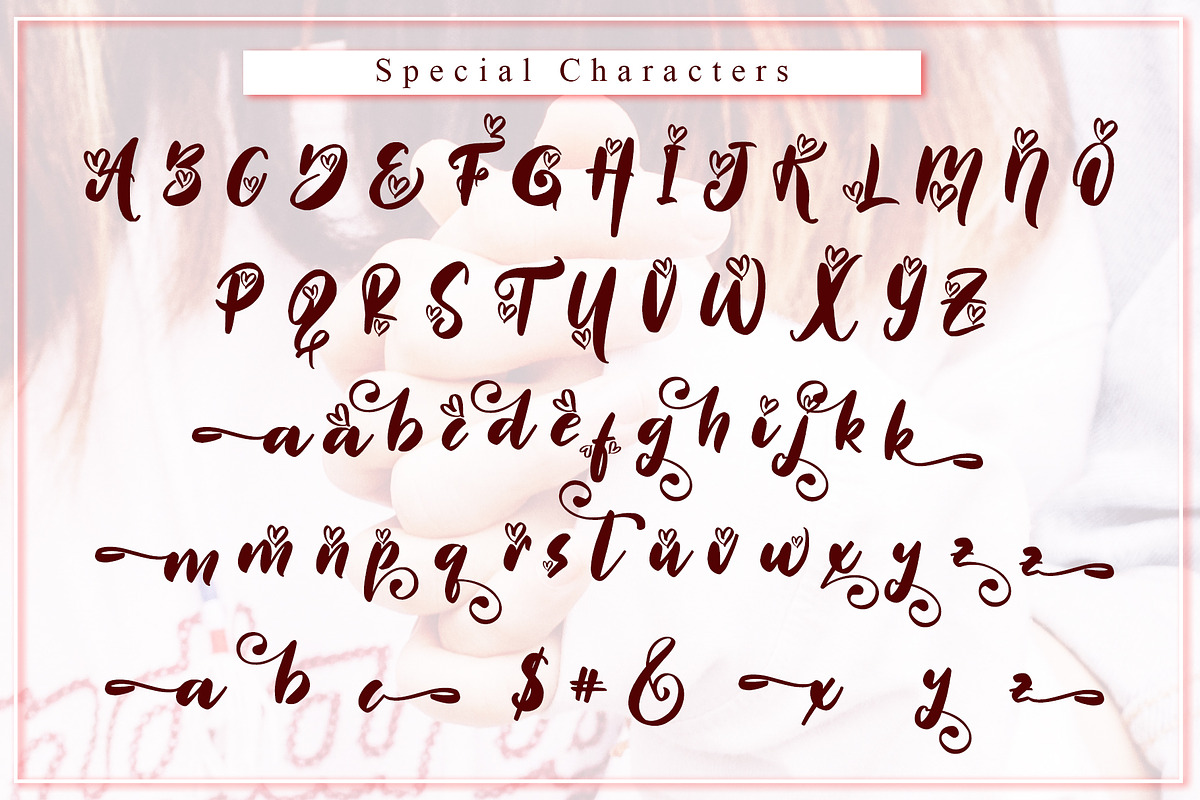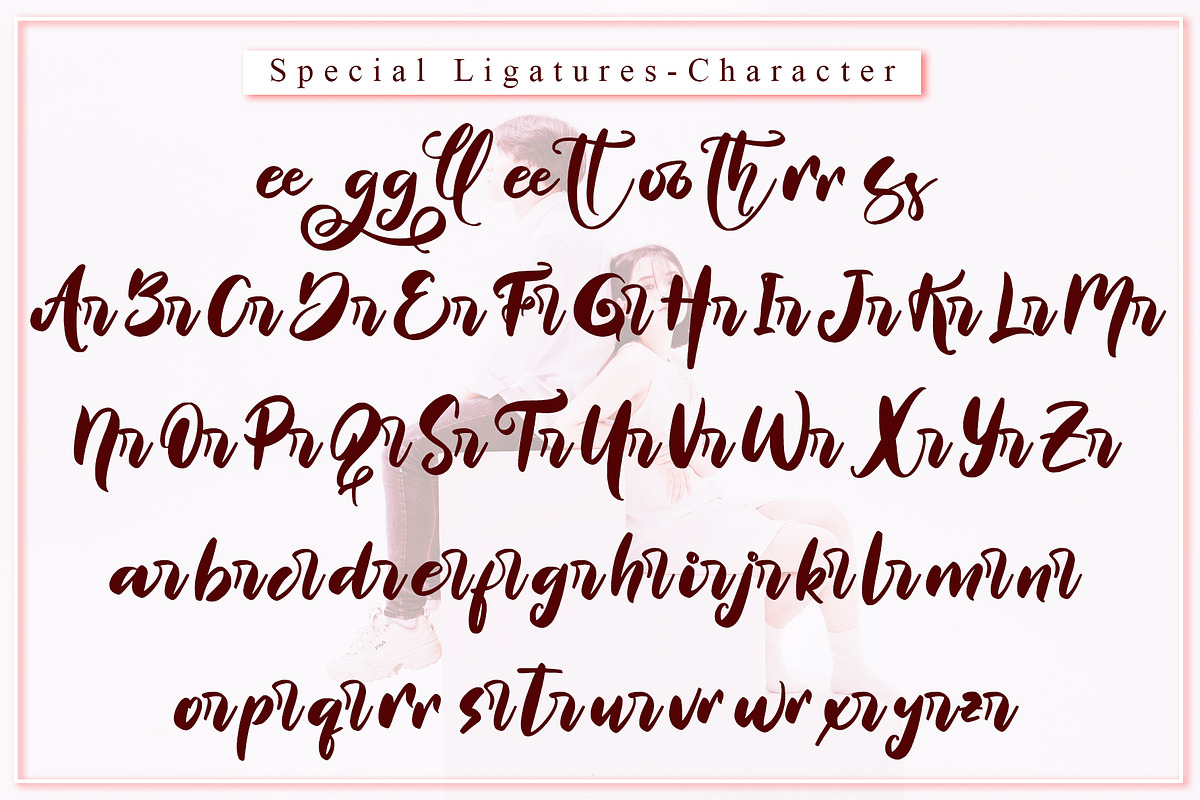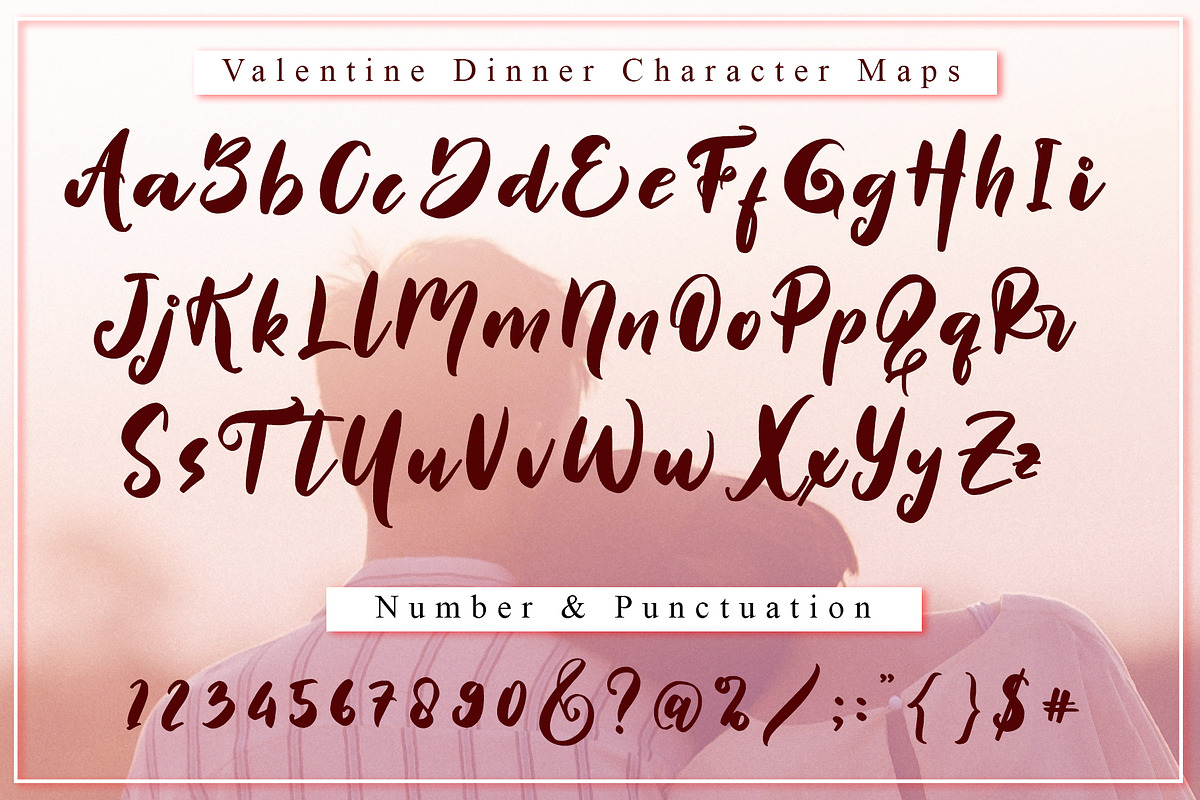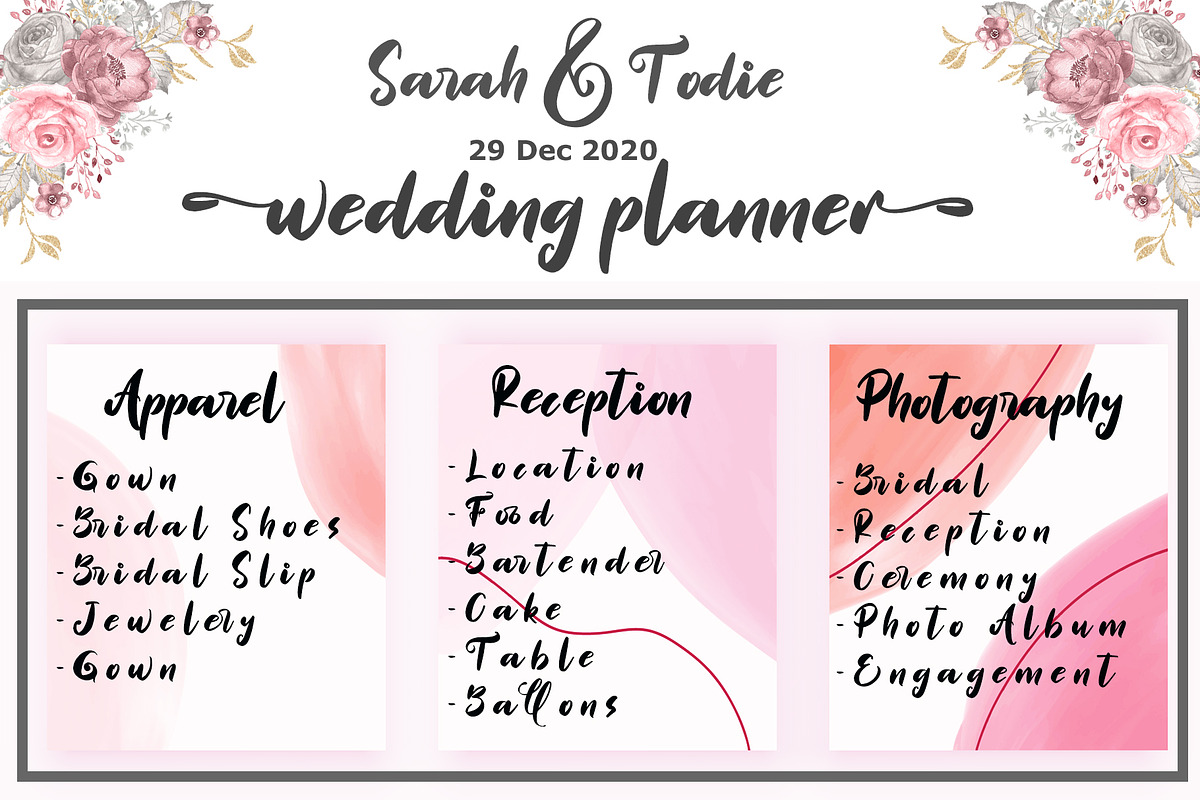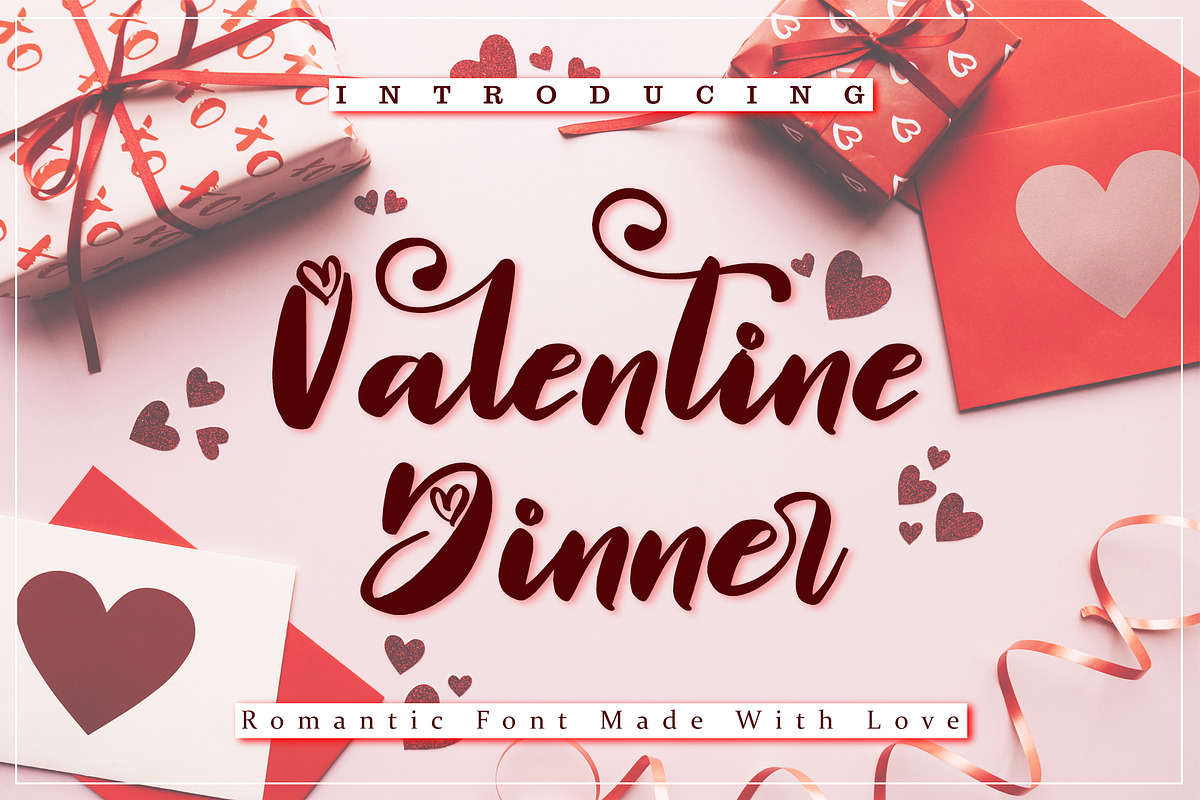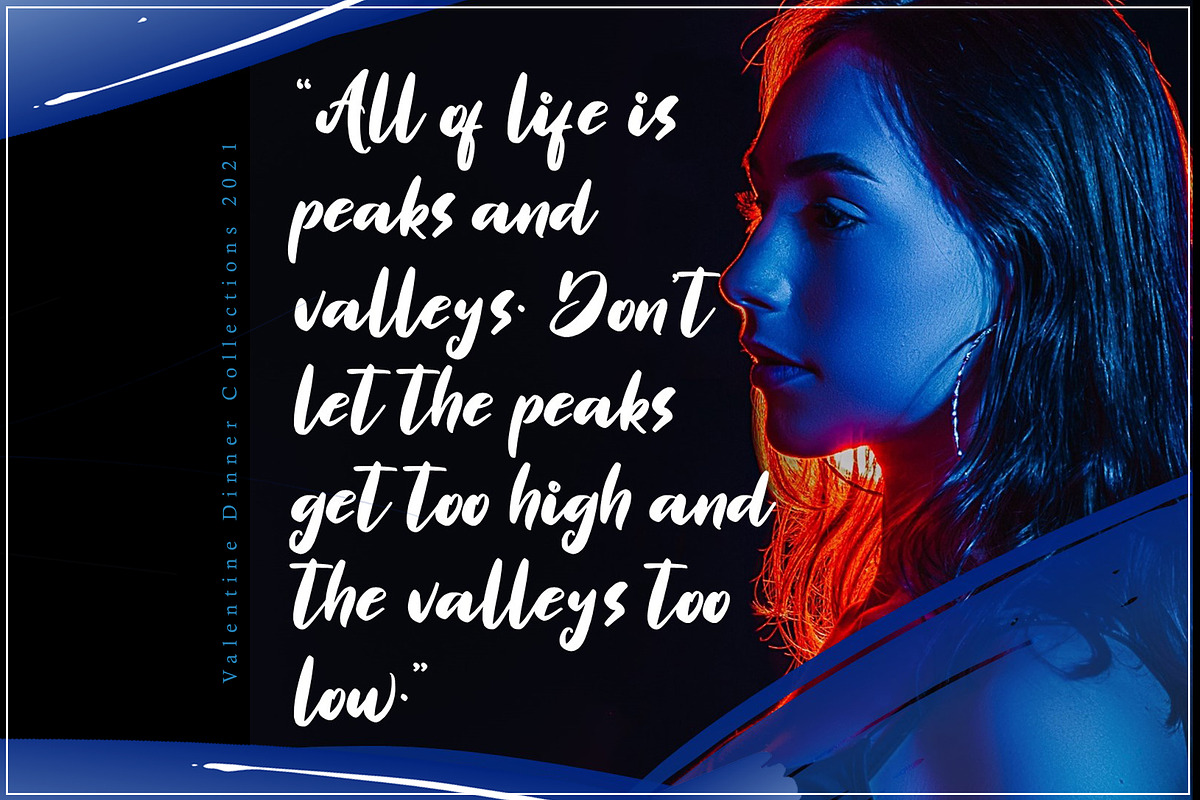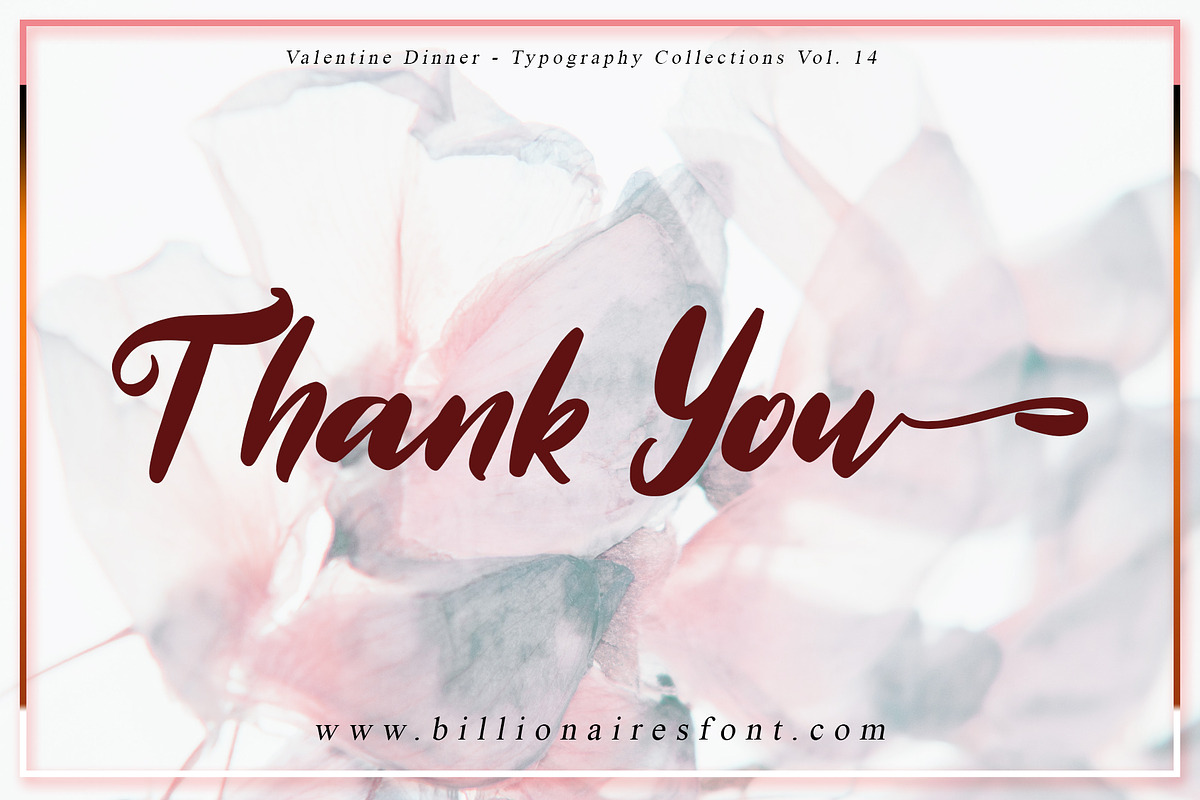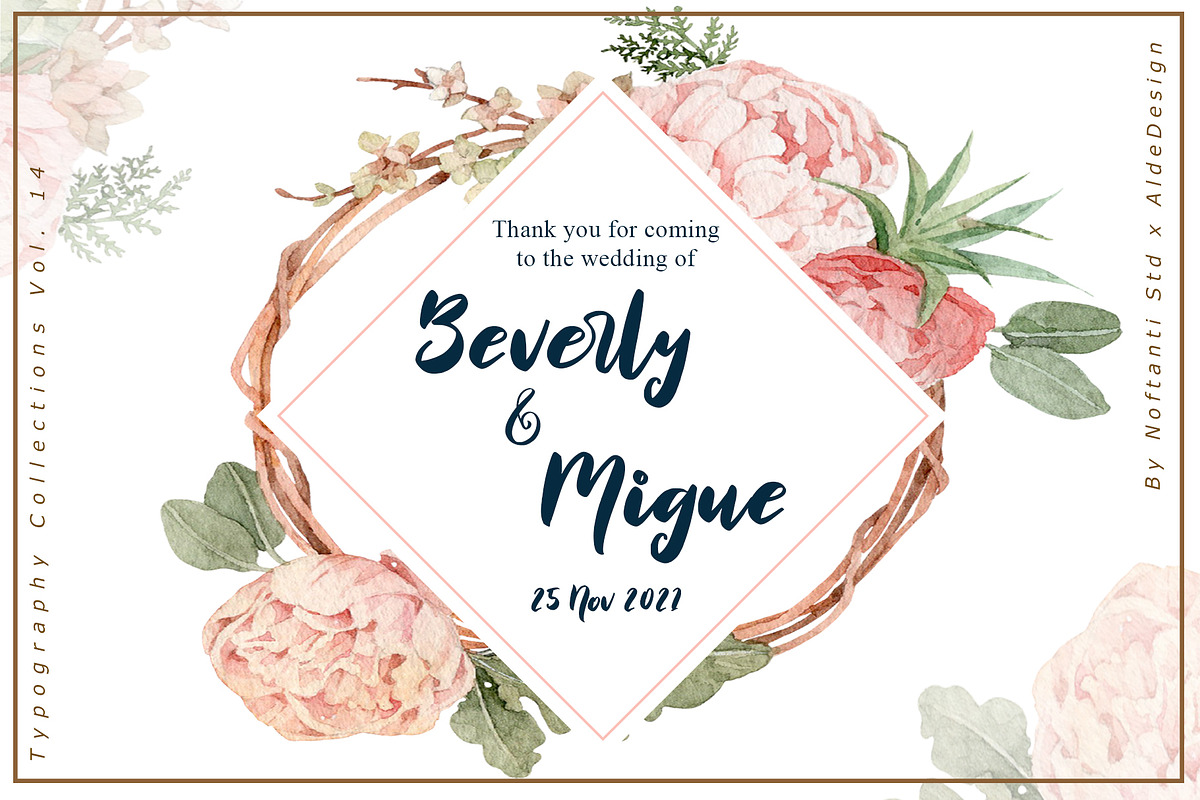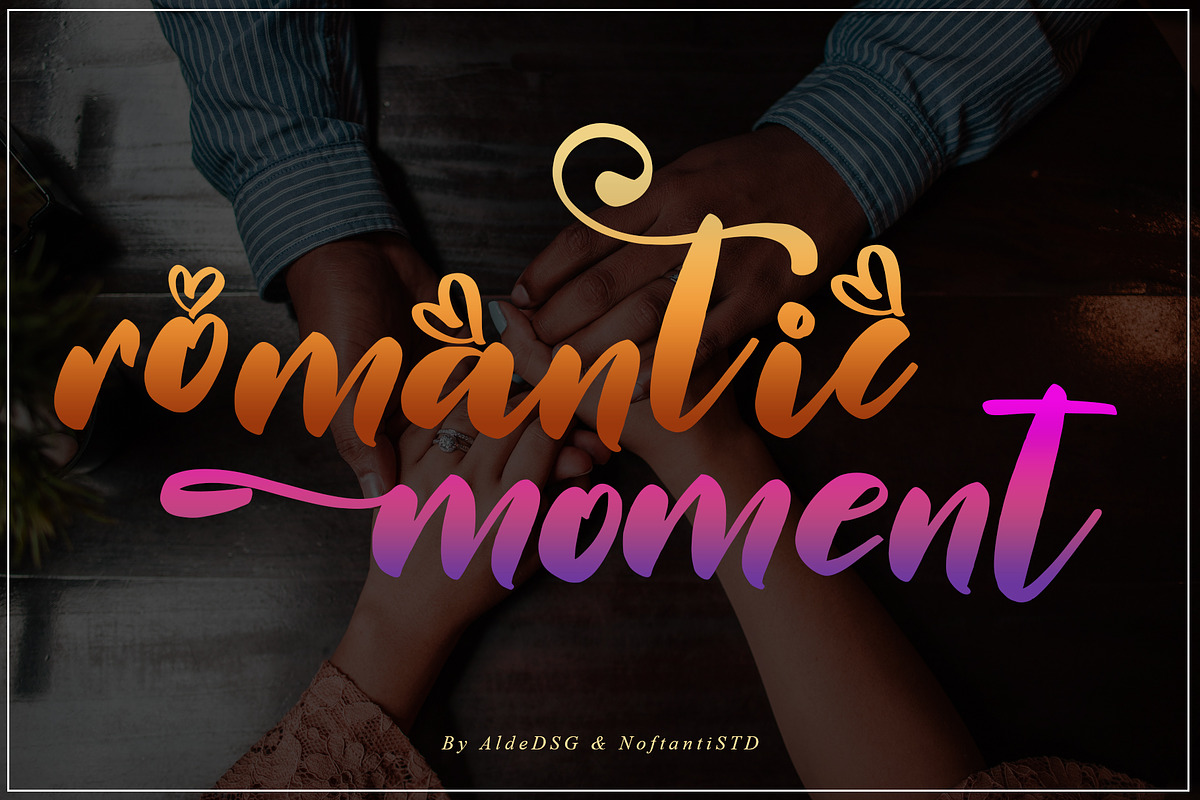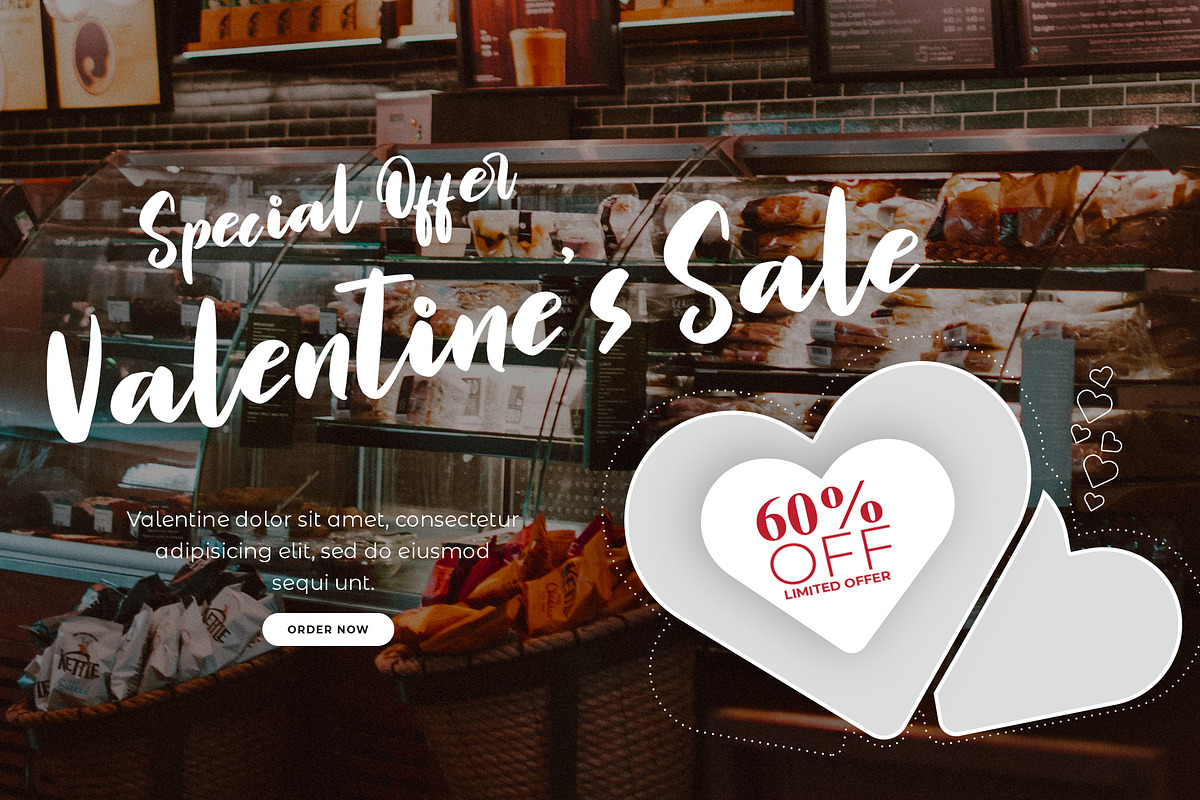
Valentine Dinner // Elegant Script
Valentine Dinner // Elegant Script Font
Valentine Dinner is a modern handwritten font that brings its own unique style to any design project. It will elevate a wide range of design projects to the highest level, be it branding, headings, wedding designs, invitations, signatures, logos, labels, and much more!
Each Font Has:
- Stylish modern handwritten script
- Beautiful Swash (Ending tail)
- Beautiful Titling (Beginning tail)
- Special Ligatures